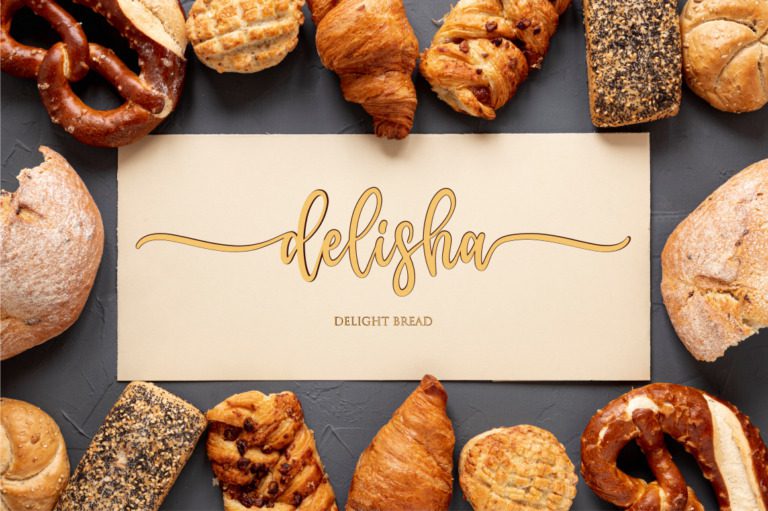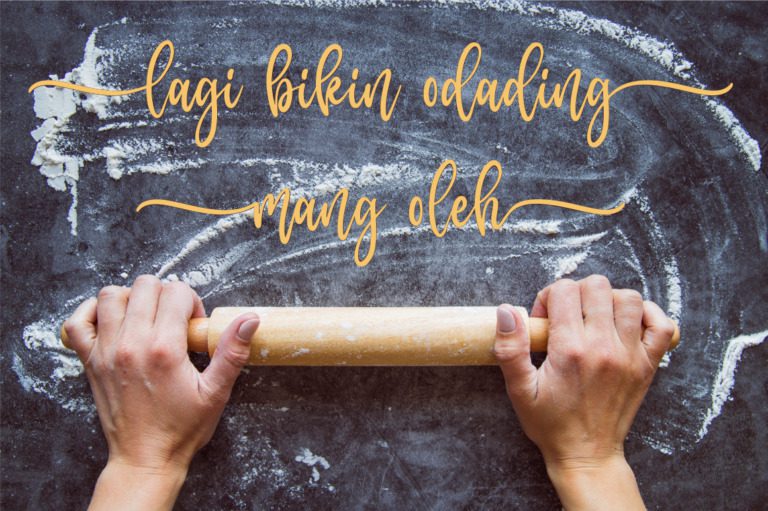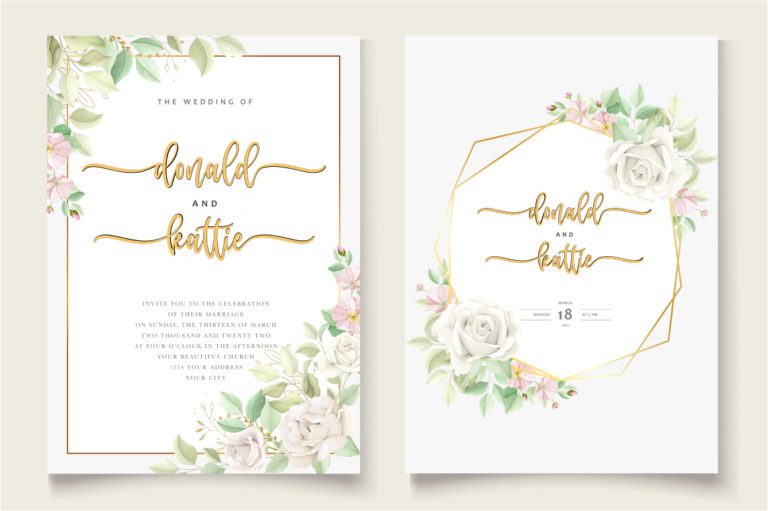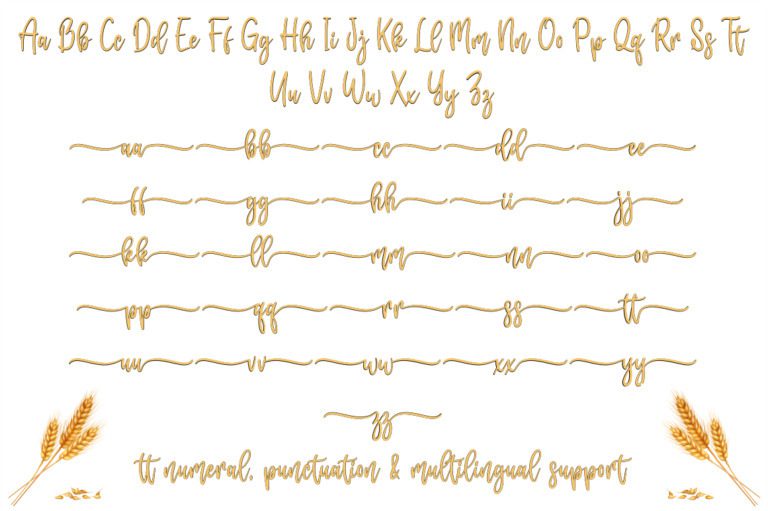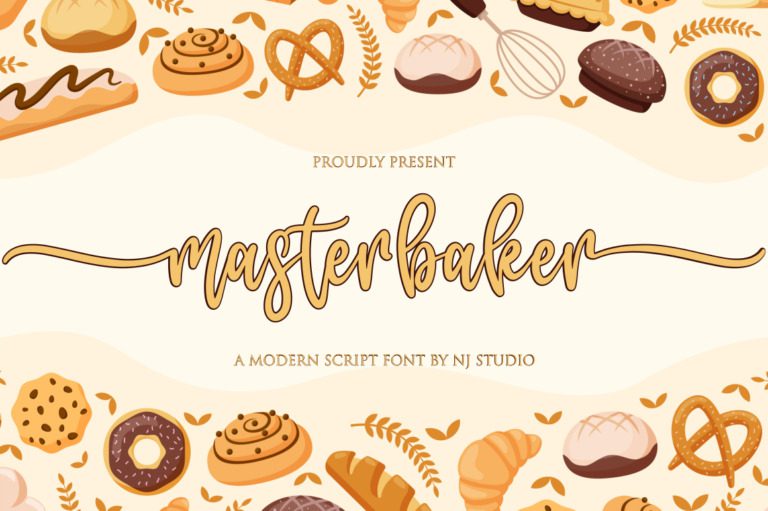
Masterbaker Font
Masterbaker is a bold and playful font that captures the essence of artisanal baking. Its rounded letters and decorative flourishes evoke the warmth and comfort of freshly baked goods. Perfect for bakery logos, menus, packaging, and other food-related designs, Masterbaker adds a touch of whimsy and appetite appeal to your creations.